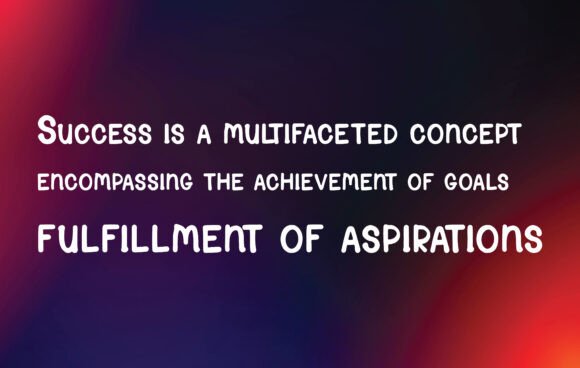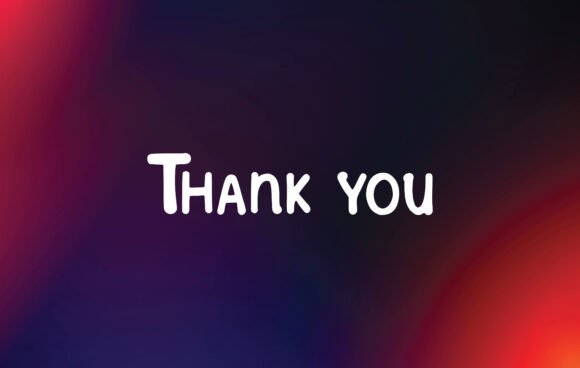
Brown Font: Elevate Your Creative Ideas with this Lovely Handwritten Font
Are you a designer, craftsperson, or DIY enthusiast looking for a font that can take your creative ideas to the next level? Look no further than Brown Font, a beautiful handwritten font that is sure to impress. With its unique and elegant style, Brown Font is the perfect choice for creating eye-catching logos, branding, and quotes that will leave a lasting impression.
What Makes Brown Font So Special?
Brown Font is a lovely and beautiful handwritten font that boasts a distinctive and charming style. Its handcrafted nature gives it a personal touch that is hard to find in digital fonts. The font’s creator has put a lot of thought and effort into crafting a unique and elegant style that is both sophisticated and approachable. Whether you’re looking to create a logo, branding materials, or social media graphics, Brown Font is the perfect choice.
Key Features of Brown Font
- Handwritten style: Brown Font is a handwritten font that has a personal and unique touch.
- Elegant and sophisticated: The font’s elegant style makes it perfect for creating high-end branding and logos.
- Versatile: Brown Font can be used for a wide range of creative projects, from logos and branding to quotes and social media graphics.
- Easy to read: Despite its elegant style, Brown Font is easy to read and understand, making it perfect for body text and captions.
Why Choose Brown Font?
So, why should you choose Brown Font for your creative projects? Here are just a few reasons:
- Unique style: Brown Font has a unique and distinctive style that will set your creative projects apart from the crowd.
- High-quality design: The font is designed with high-quality and precision, ensuring that it looks great in any size or format.
- Time-saving: With Brown Font, you can create professional-looking creative projects in no time, saving you time and effort.
How to Use Brown Font
Using Brown Font is easy and straightforward. Here are a few tips to get you started:
- Logos and branding: Use Brown Font to create eye-catching logos and branding materials that will leave a lasting impression.
- Quotes and social media graphics: Use Brown Font to create inspiring quotes and social media graphics that will engage your audience.
- Body text and captions: Use Brown Font as a body text font or for captions to add a personal touch to your creative projects.
Tips and Tricks for Working with Brown Font
Here are a few tips and tricks to help you get the most out of Brown Font:
- Experiment with font sizes: Brown Font looks great in a variety of font sizes, so don’t be afraid to experiment and find the perfect size for your creative project.
- Pair with other fonts: Brown Font pairs well with other fonts, so try pairing it with a bold font for headings or a sans-serif font for body text.
- Use in combination with images: Brown Font looks great in combination with images, so try using it to add text to your photos or illustrations.
In conclusion, Brown Font is a lovely and beautiful handwritten font that is perfect for designers, craftspersons, and DIY enthusiasts. With its unique and elegant style, Brown Font is sure to take your creative ideas to the next level. Whether you’re looking to create eye-catching logos, branding, and quotes, or simply want to add a personal touch to your creative projects, Brown Font is the perfect choice.